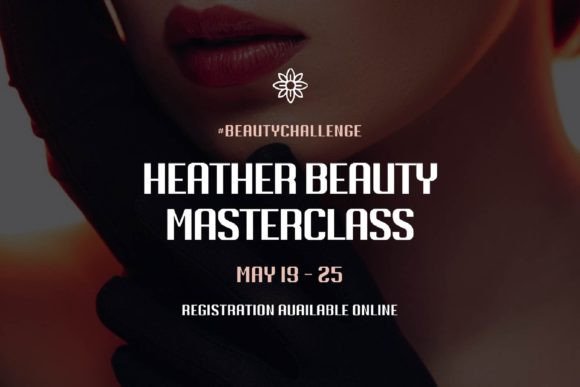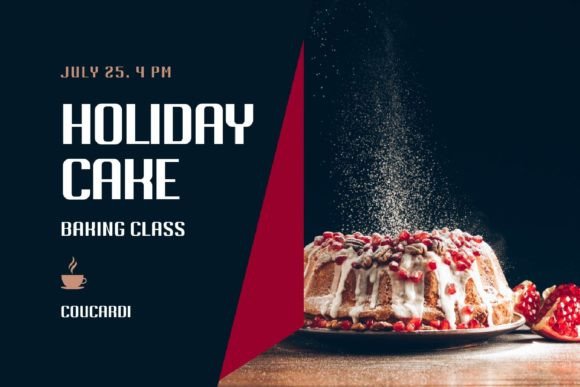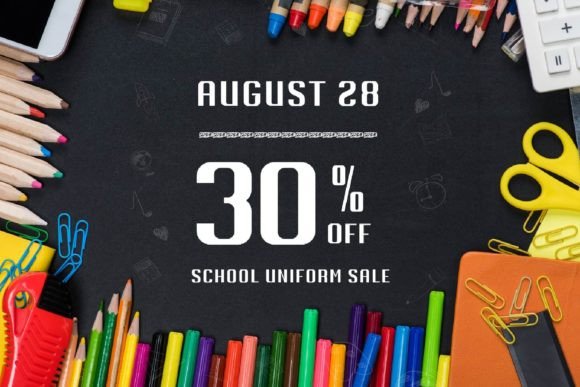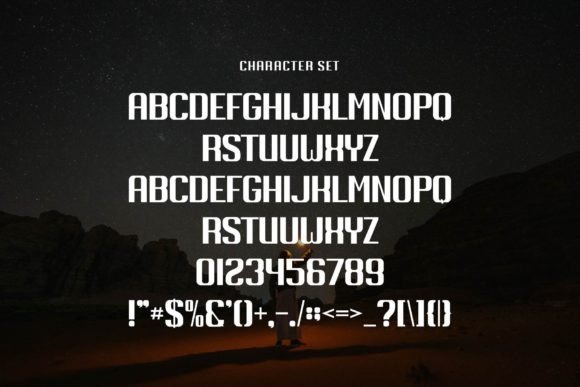
Introduction to Komang Font Font
Fonts play a crucial role in design, and the Komang Font font is a typeface that brings both character and versatility to any project. Whether you’re working on a branding project, a website, or a print design, the Komang Font font offers a unique style that can elevate your work.
Komang is a sans serif font, inspired by the famous minimalist logo perfect for the purposes of designing templates, brochures, videos, advertising branding, logos, invitations, layout design, elegant crafting, beauty designs and much more.
Komang is a sans serif font, inspired by the famous minimalist logo perfect for the purposes of designing templates, brochures, videos, advertising branding, logos, invitations, layout design, elegant
Key Features of Komang Font Font
• ✅ High-quality typeface designed for professional use
• ✅ Includes a wide range of glyphs and characters
• ✅ Ideal for logos, branding, websites, and print
Why Choose Komang Font Font?
The Komang Font font is more than just a typeface – it’s a design tool that helps you communicate your message with style and clarity. Its unique character set and versatile design make it suitable for a wide range of applications, from elegant invitations to bold headlines.
With its carefully crafted letterforms and balanced proportions, the Komang Font font ensures readability and visual appeal across all mediums.
What makes Komang Font font special?
The Komang Font font stands out with its unique design, exceptional readability, and versatility across various design applications.